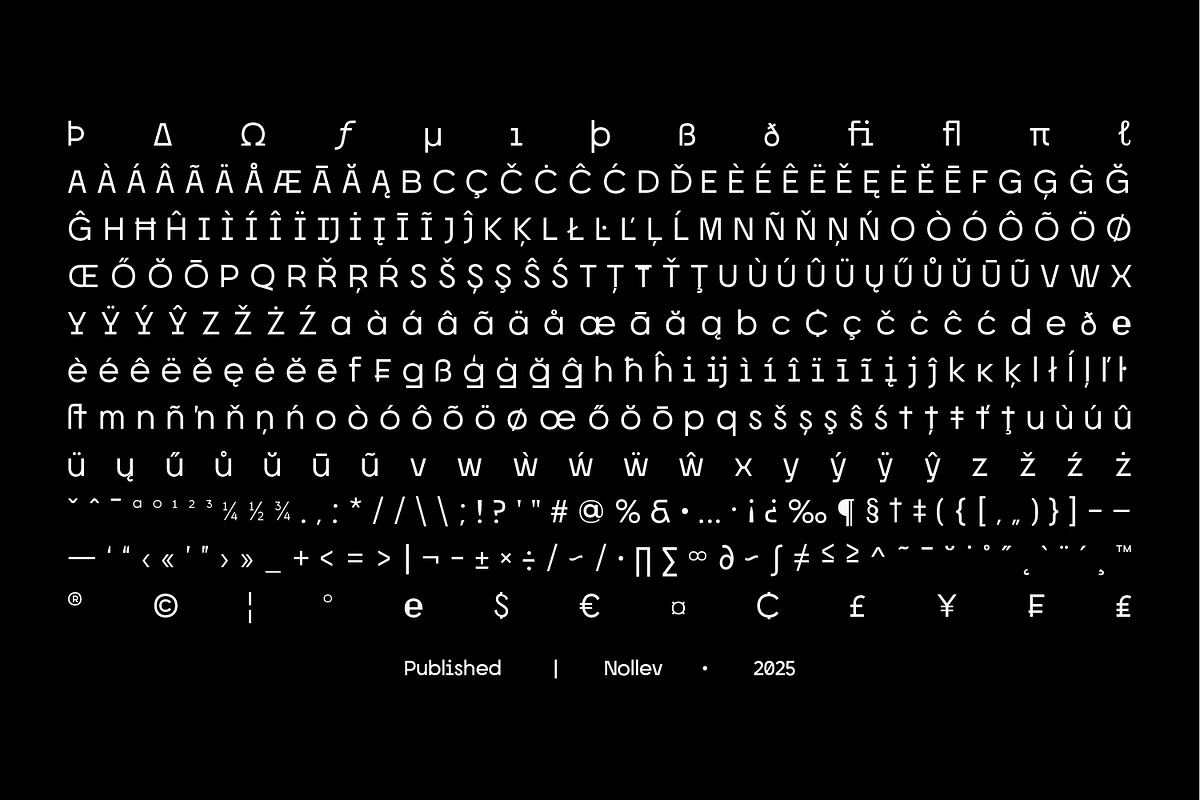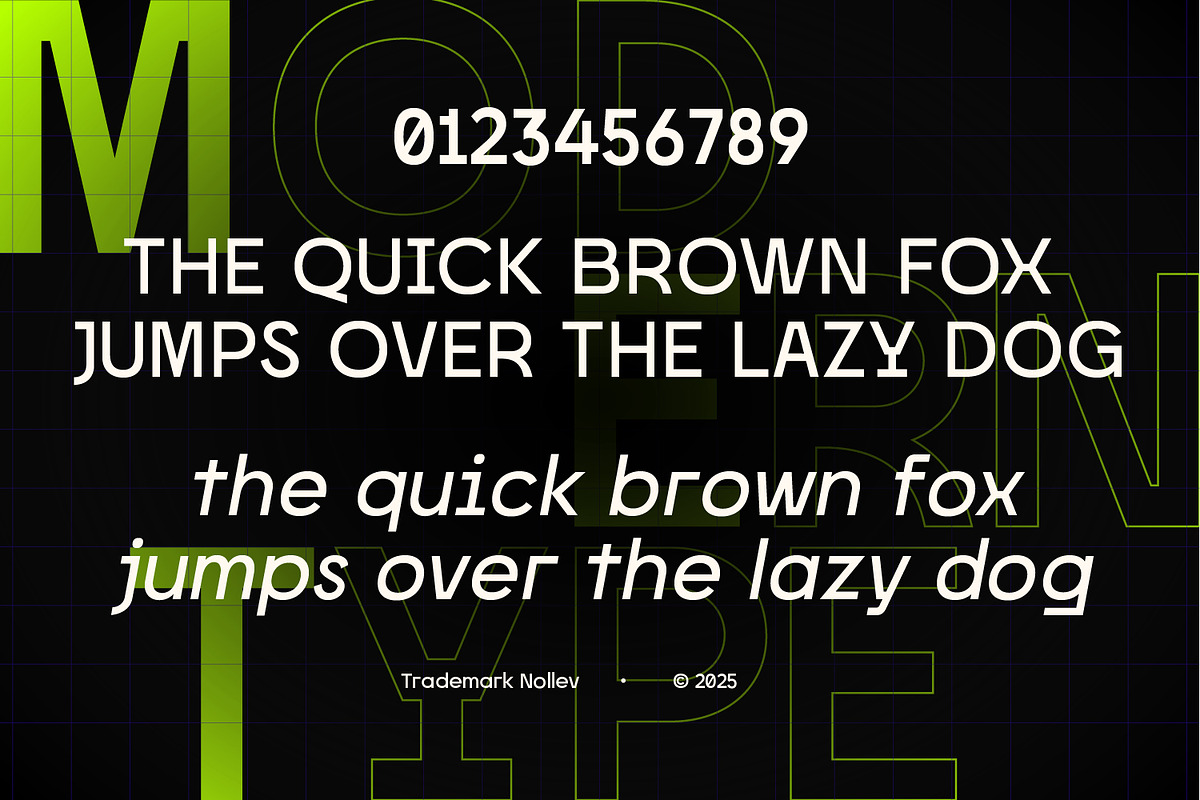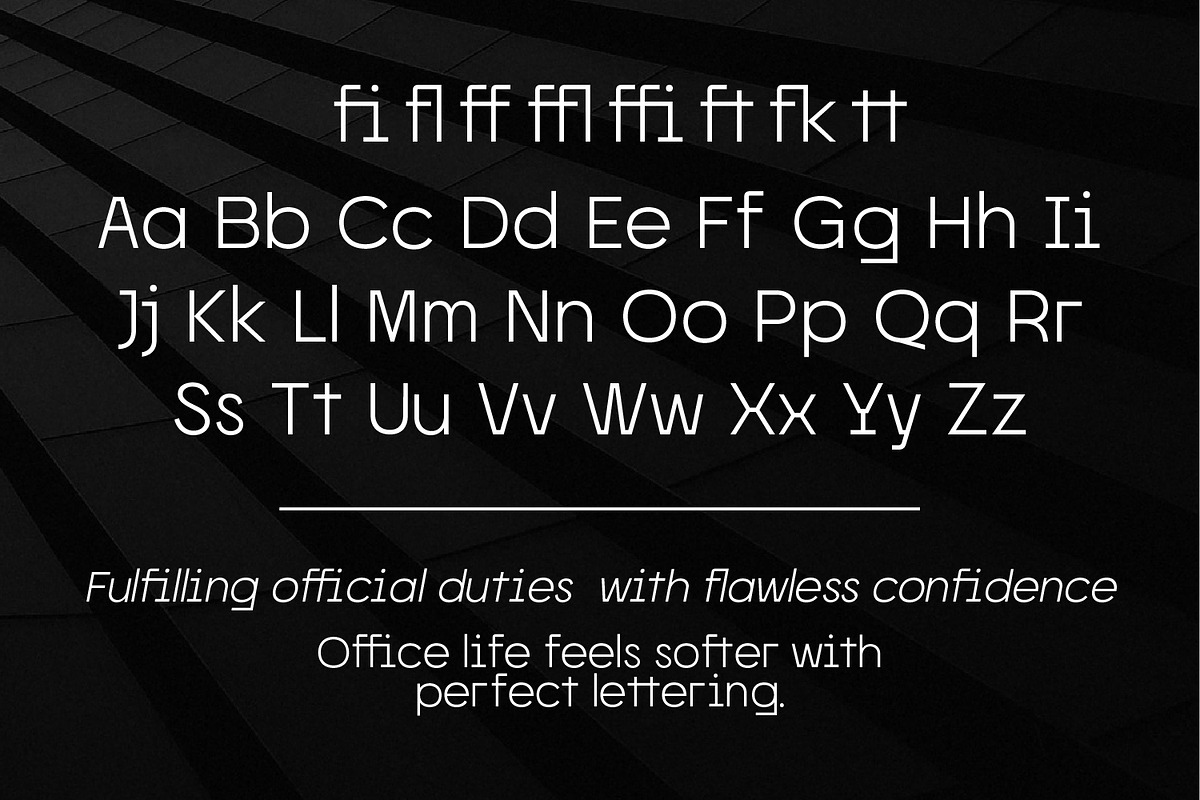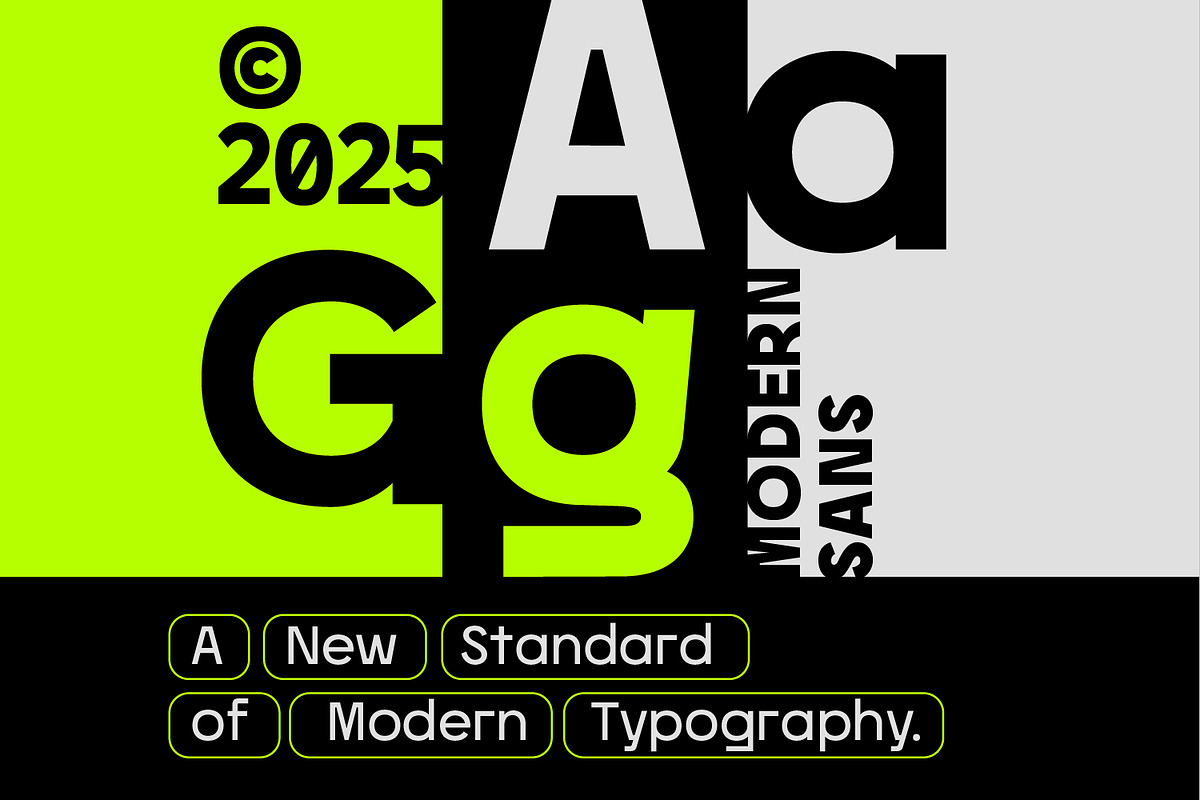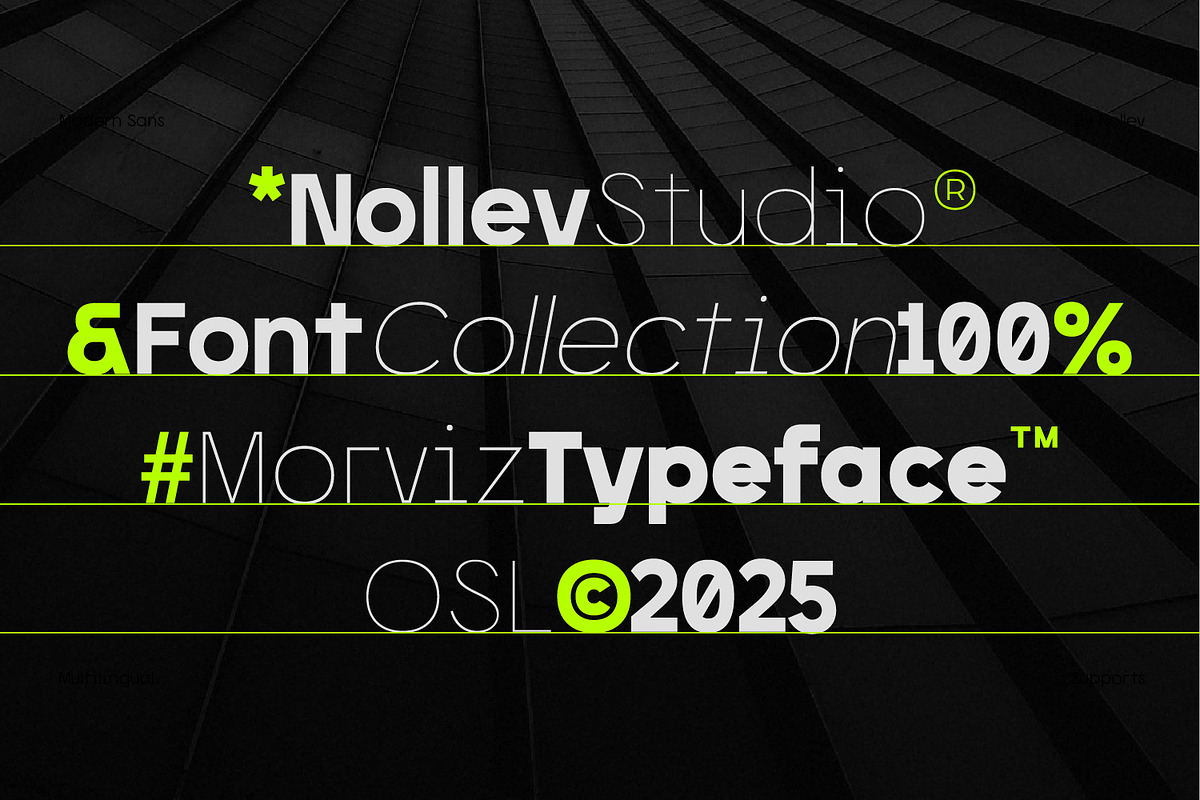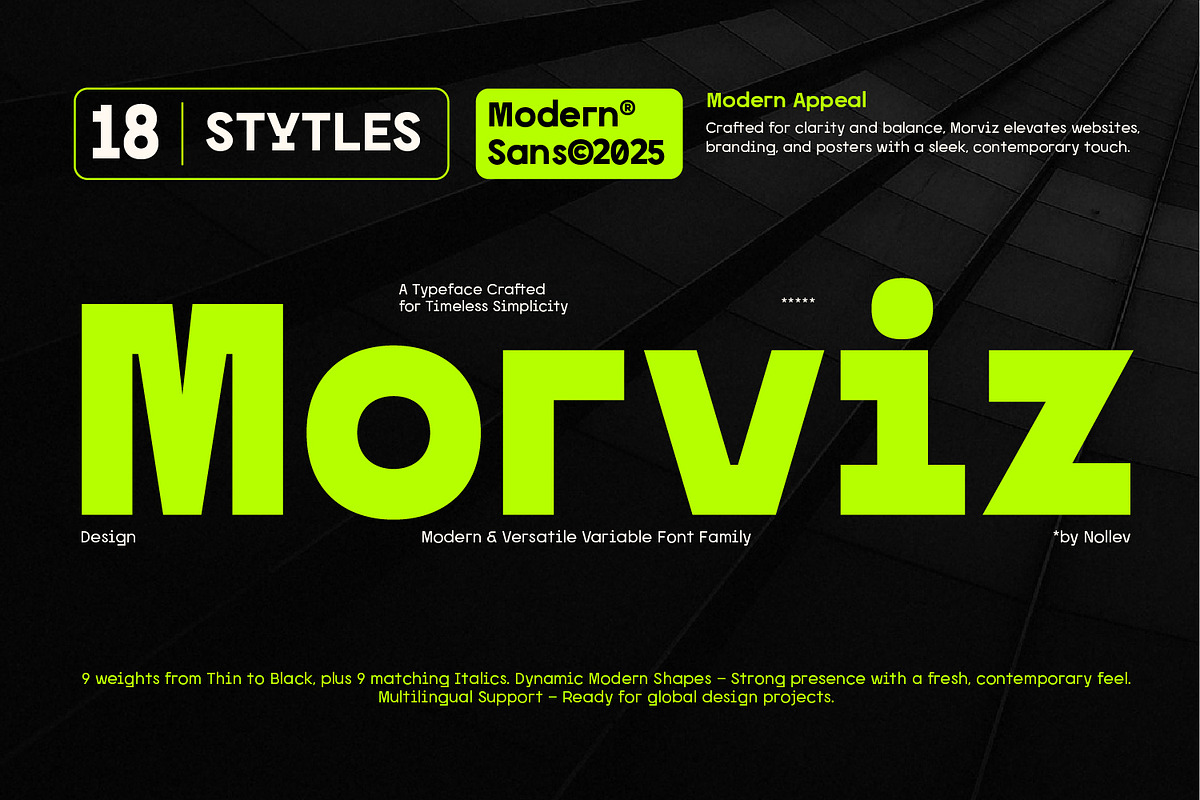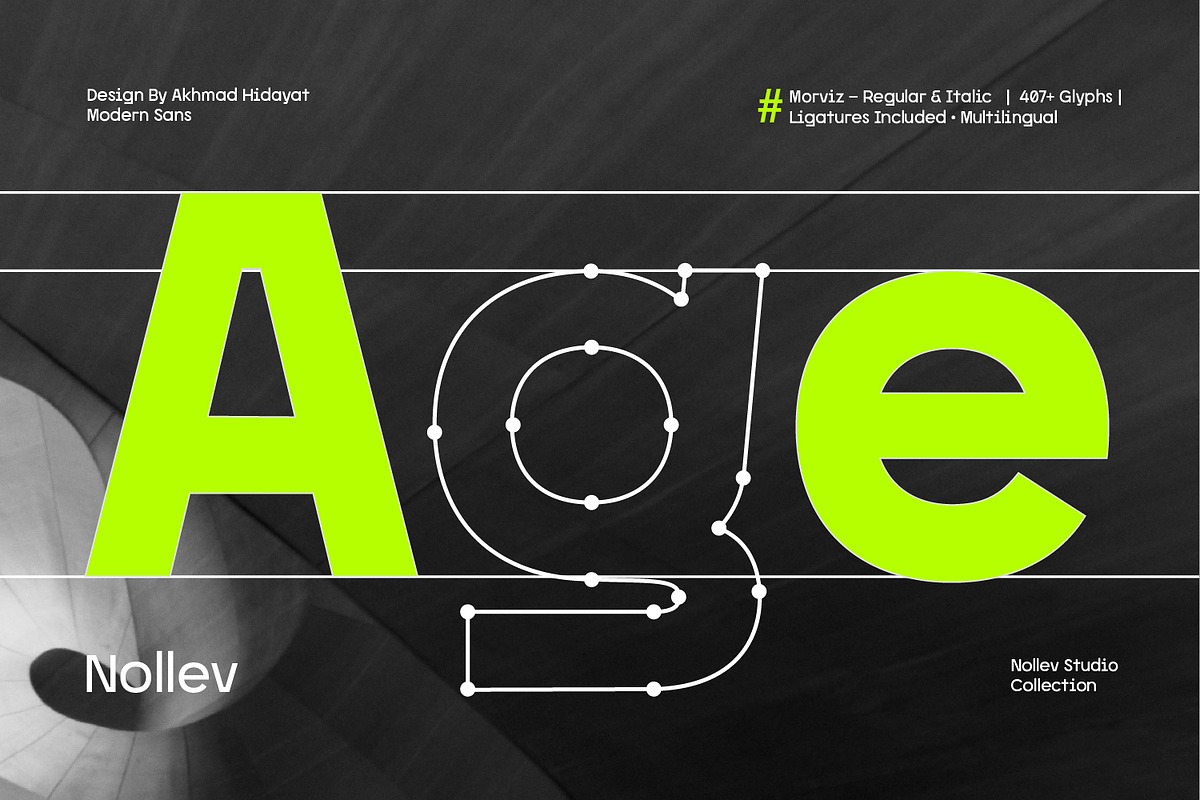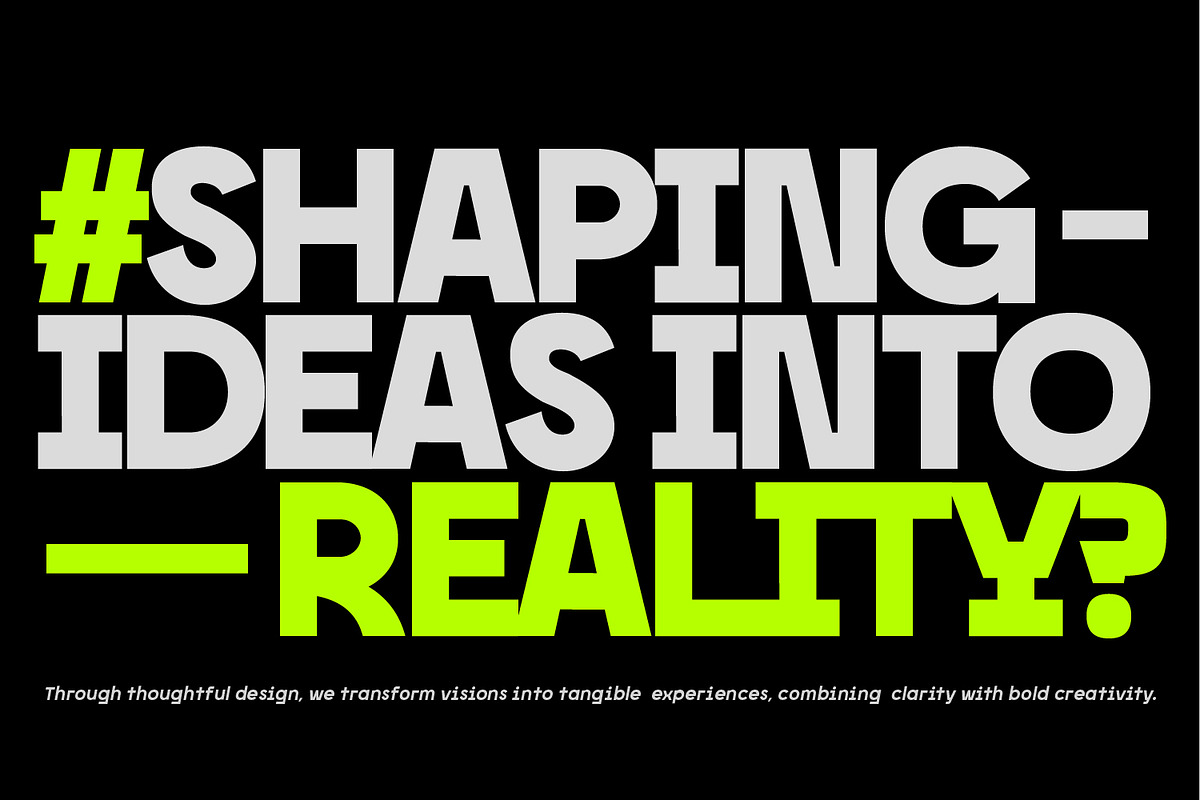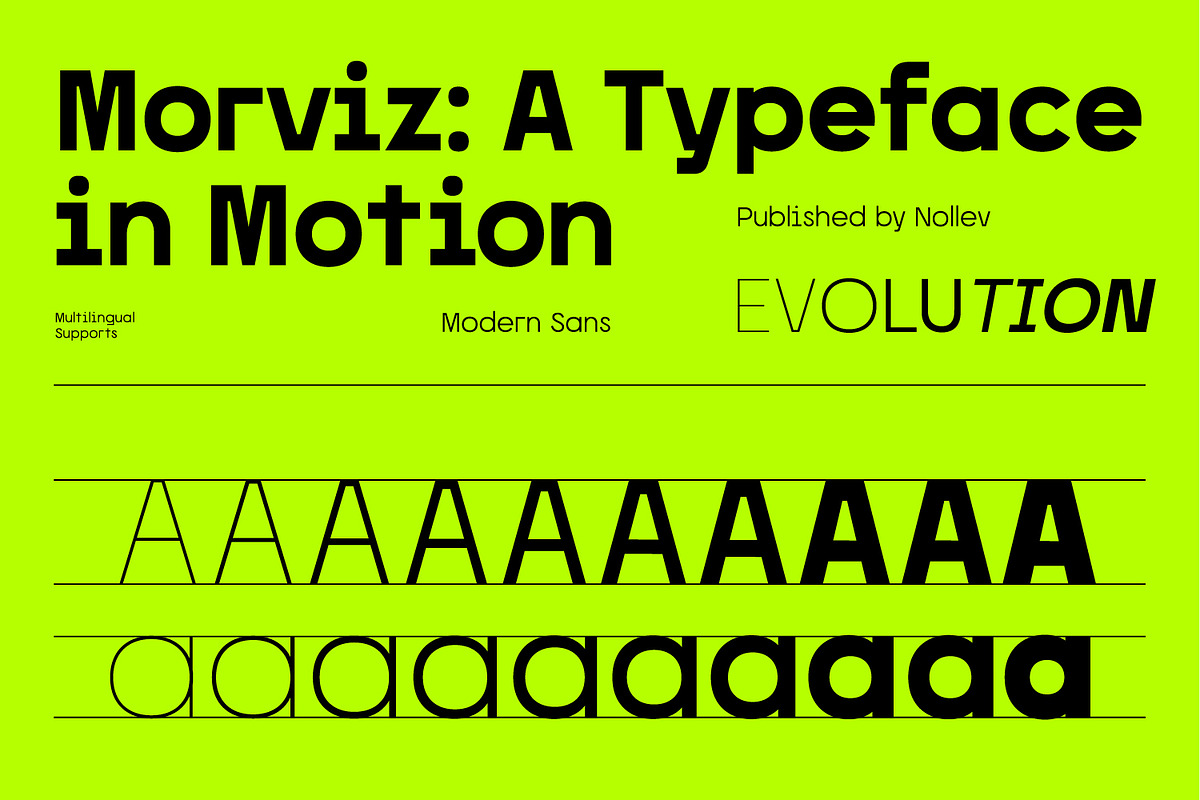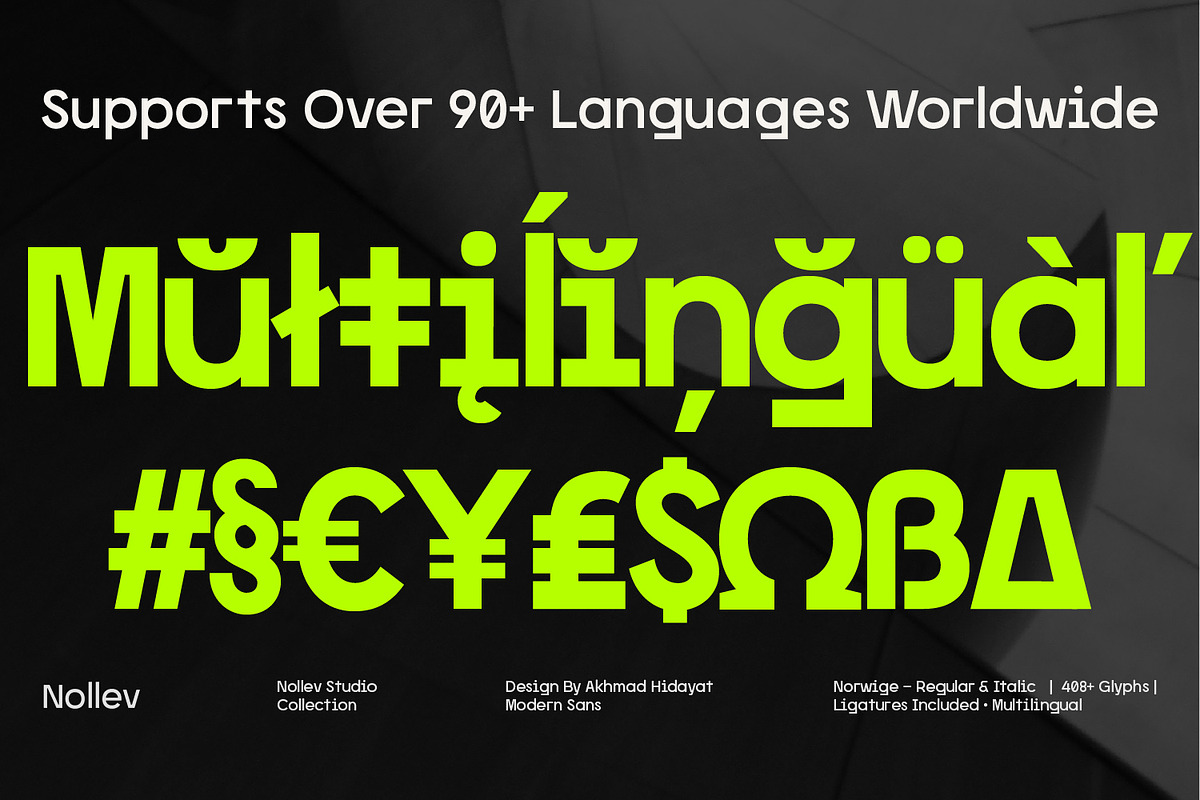
Morviz – New Sans (18 Styles)
Morviz is a modern and versatile geometric sans-serif typeface crafted for clarity, balance, and strong visual impact. With clean letterforms and dynamic proportions, it brings a fresh and contemporary feel to any design — perfect for branding, websites, packaging, and editorial use.
The family includes 9 weights (from Thin to Black) with matching Italics, plus a Variable Font version for complete flexibility in any creative workflow. Designed to maintain readability at any size, Morviz is both functional and stylish — ideal for global design projects.
- 9 weights: Thin → Black + Italics
- Geometric modern sans-serif
- Perfect for web, print, and digital branding
- Branding & logo design
- Web and app UI/UX
- Corporate identity
- Editorial layouts
- Packaging & advertising
🖋️ About the Font:
- Designed by Nollevé Studio, Morviz combines the simplicity of geometric design with a confident, modern personality — built to stand out in both minimalist and bold visual contexts.